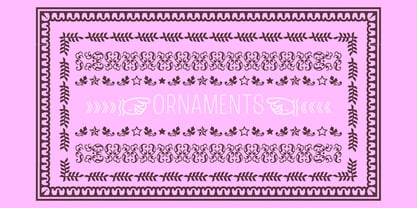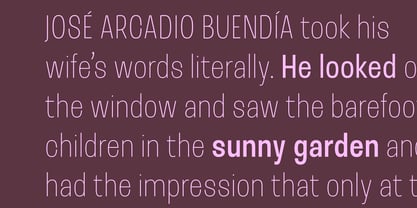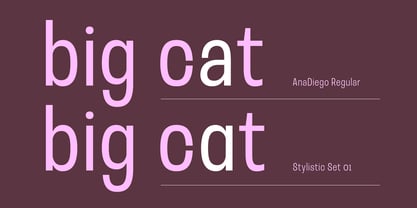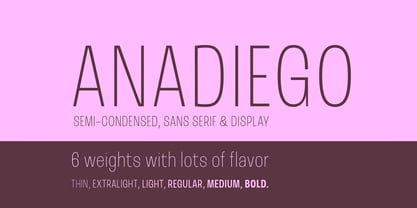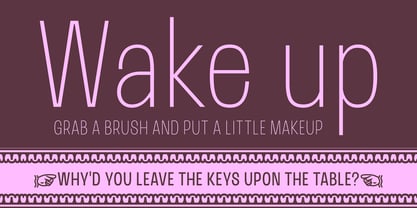
Ana Diego
by Tipastype
The Ana Diego Font Family was designed by Sandra García and published by Tipastype. Ana Diego contains 6 styles and family package options. More about this family
AnaDiego, an exceptional typeface, is a heartfelt tribute to Ana Teresa Diego, an Argentine astronomy student who tragically disappeared in 1976. This unique font boasts distinctive features, such as tight closures between letters 'c,' 'e,' 's,' and 'a,' setting it apart from traditional sans-serif fonts. Its condensed and narrow design allows for efficient use of space, making it the perfect choice for large texts, titles, subtitles, labels, and any content that demands a bold presence. With six weights – Thin, ExtraLight, Light, Regular, Medium, and Bold – and a character set comprising 725 letters, including support for Vietnamese, AnaDiego offers a versatile toolkit for designers.
Designers: Sandra García
Foundry: Tipastype